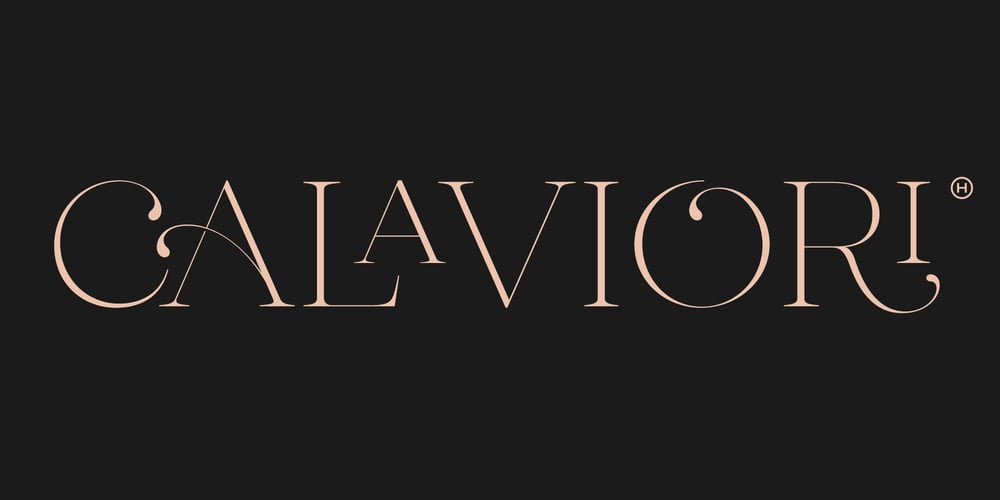
Calaviori
Calaviori font
Calaviori Font Family was designed by Tulus Driyo and published by Hindia Studio. Calaviori contains 1 styles and family package options. Calaviori is a refined thin serif typeface, perfect for enhancing the sophistication of your design projects. Its elegant ligatures and diverse alternates make it an excellent choice for creating stunning headlines, luxury branding, and polished editorial layouts. This font not only offers a visually appealing aesthetic but also provides versatility in design.